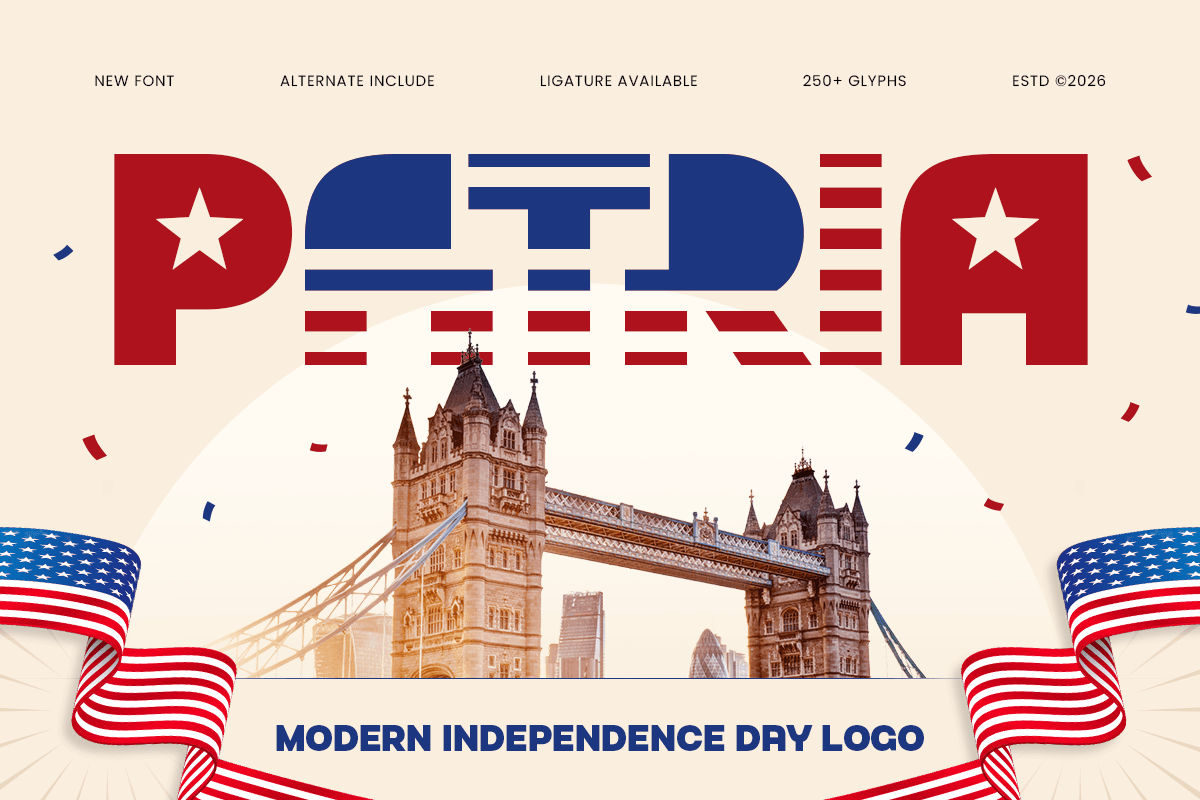
Patria
-Modern Independence Veterans Day FontPATRIA – Modern Independence Veterans Day Font
PATRIA is a modern independence veterans day font created to express pride, honor, and strength through bold typography. With its confident display style and powerful letterforms, PATRIA delivers a strong patriotic identity that is perfect for designs inspired by national celebrations and heroic moments.
Designed for independence day campaigns, veterans events, military themes, and commemorative projects, PATRIA brings impact to posters, banners, logos, social media graphics, and promotional materials. Its modern structure creates a balance between tradition and contemporary design, making every message feel meaningful and memorable.
Whether used for patriotic branding, apparel designs, event signage, merchandise, or digital campaigns, PATRIA provides a commanding visual presence. This font is crafted for designers who need a bold and recognizable typeface that represents courage, unity, and pride.
PATRIA – Modern Independence Veterans Day Font Features
Bold modern display letterforms with patriotic character
Strong typography inspired by independence and veterans themes
Perfect for logos, posters, banners, and event designs
Ideal for apparel, merchandise, and promotional graphics
Works beautifully for digital and print applications
OpenType features for creative flexibility
Create powerful patriotic visuals with PATRIA – a modern independence font built to honor stories, celebrations, and bold identities. ✨